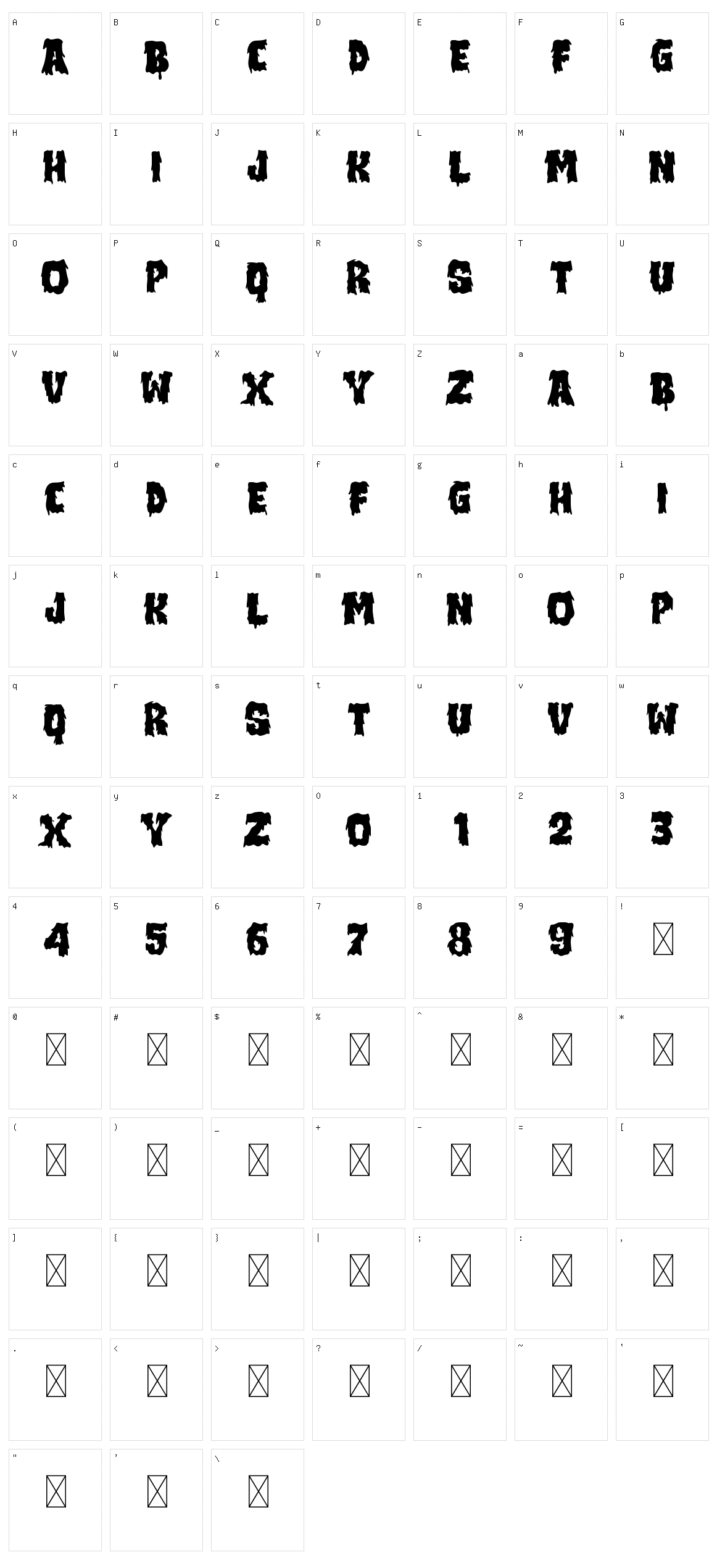
The free font Monstarize is carefully designed by Tokokoo Studio, showcasing a thoughtful balance of creativity and usability and falls under the Halloween font style. When you download the ZIP file, it contains only 13.95 KB of font files, making it lightweight and quick to download. Please review the license details below to understand permitted usage and distribution rights. If license information is not available, we recommend using this font for personal projects only or contacting the author directly for commercial usage permissions.